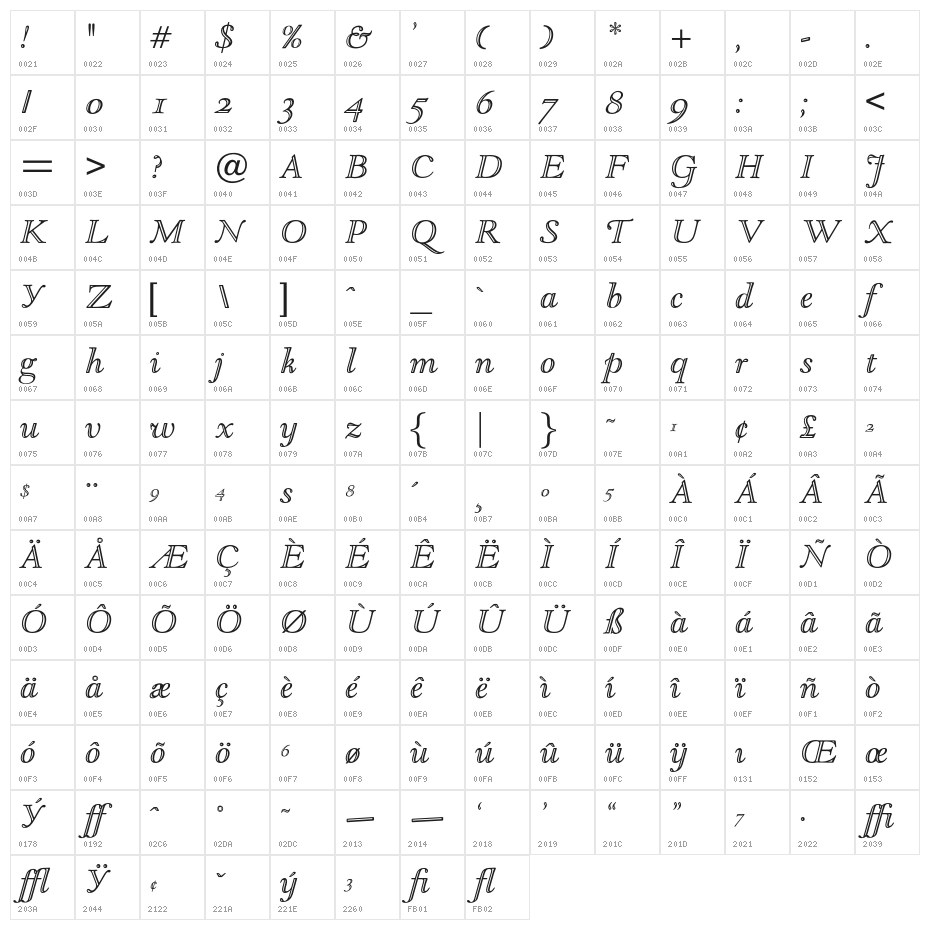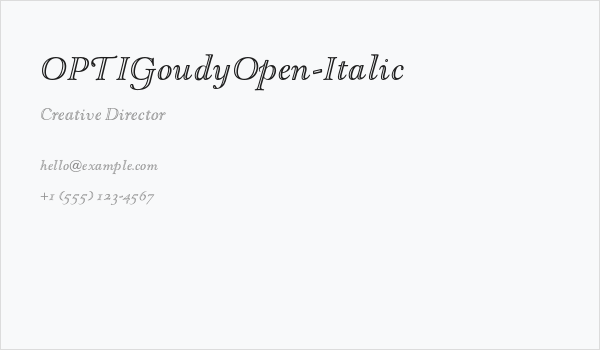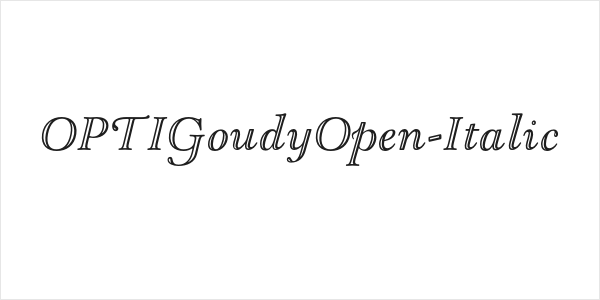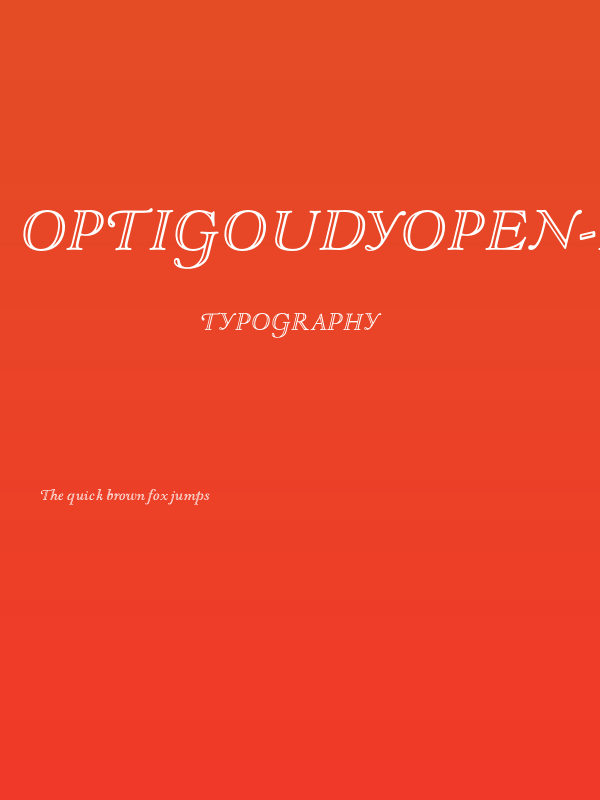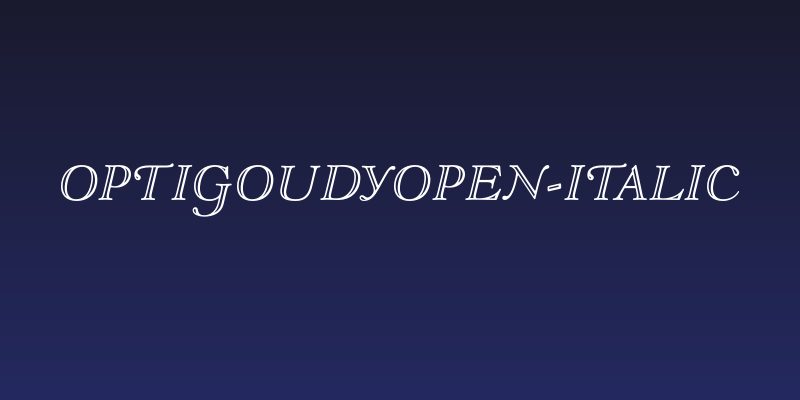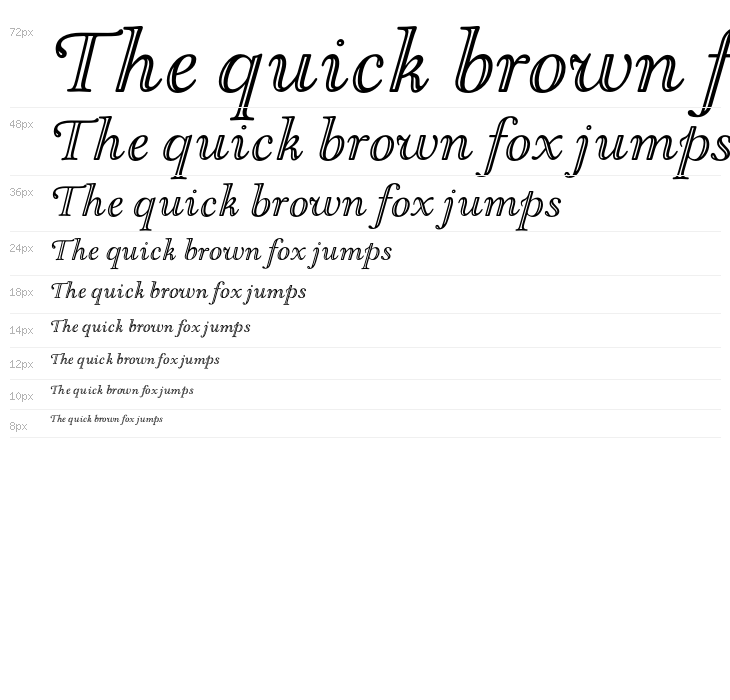
OPTIGoudyOpen-Italic Font
OPTIGoudyOpen-Italic Description
This elegant typeface features a classic and sophisticated design with a distinct italic slant, giving it a refined and graceful appearance. The characters are adorned with subtle serifs and a flowing, cursive style that adds a touch of formality and tradition. The uppercase letters are tall and commanding, while the lowercase letters maintain a consistent and harmonious flow. The numerals are clear and well-proportioned, ensuring readability. Special characters are thoughtfully designed to complement the overall aesthetic, making this font suitable for a variety of formal and decorative applications.
| Proposed Projects | Ideal for wedding invitations, formal event programs, luxury branding, and editorial design. |